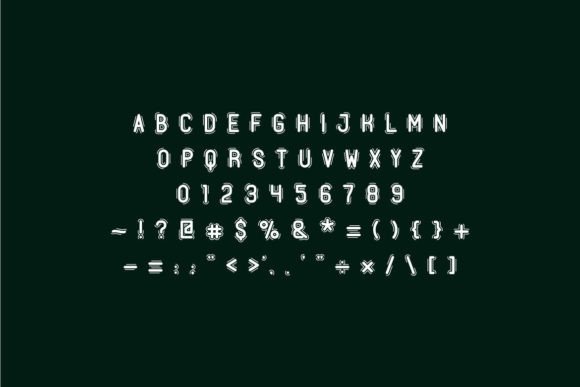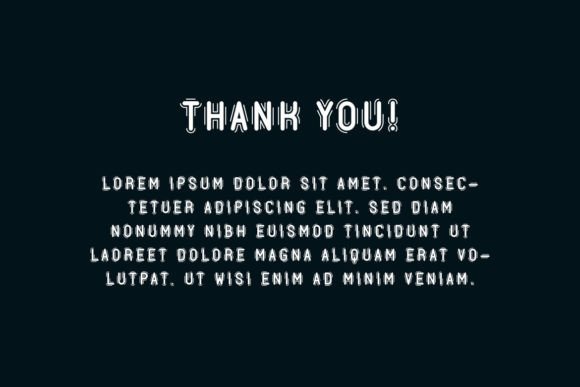
Have you ever been in the middle of a design project, staring at a blank page, and suddenly, the perfect font pops into your mind? For many designers, that moment is what sets their work apart from the rest. And for those who have experienced it, they know how exciting it can be to see their ideas come to life with the right typography.
That’s where the Boigen Font comes in – a modern and interesting display font that has the power to elevate any creation. Whether you’re designing a logo, a poster, or a website, Boigen Font is an incredible asset to your library. Its unique style and versatility make it the perfect addition to any designer’s toolkit.
With the Boigen Font, you’ll be able to add a touch of sophistication and creativity to your designs, setting you apart from the competition. Whether you’re a seasoned designer or just starting out, this font is sure to become a favorite.
Key Features of Boigen Font
- Unique Characteristics: Boigen Font features a unique blend of modern and elegant styles, with subtle flair and sophistication, making it ideal for high-end design projects.
Boigen Font Review
I recently had the chance to work with the Boigen font, and I must say it’s an interesting addition to the world of typography. Let’s dive into what I liked and what I didn’t.
- Unique aesthetic: Boigen has a distinct, modern feel that’s perfect for brands looking to stand out.
- Excellent legibility: The font is easy to read, even at smaller sizes, making it great for digital applications.
- Good range of weights: Boigen comes in a variety of weights, from light to bold, giving designers flexibility in their designs.
- Limited language support: Boigen may not be the best choice for designs that require extensive language support.
- No italic or oblique styles: This may be a deal-breaker for designers who need to create documents or presentations with italic or oblique text.
- Not ideal for large blocks of text: Boigen can start to feel a bit fatiguing when used for extended periods of time, so it’s best suited for titles and headings.
Overall, Boigen is a solid choice for designers who need a unique, modern font for their projects. While it may have some limitations, it’s a great option for titles, headings, and digital applications.
Getting the Most Out of Boigen Font
To get the most out of the Boigen font, try using it in combination with bold and italic styles to create visual interest. You can also use it in conjunction with other fonts to create a unique and eye-catching typography.
The Boigen font is ideal for use in modern and minimalist designs, such as logos, business cards, and social media graphics. It’s also a great choice for use in headings and titles due to its clean and elegant design.